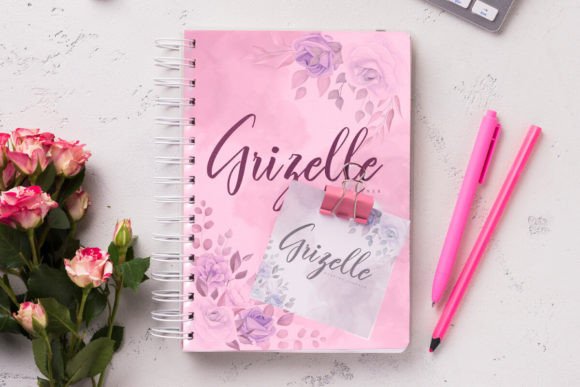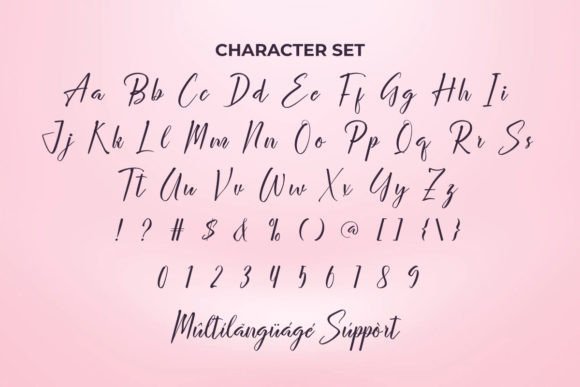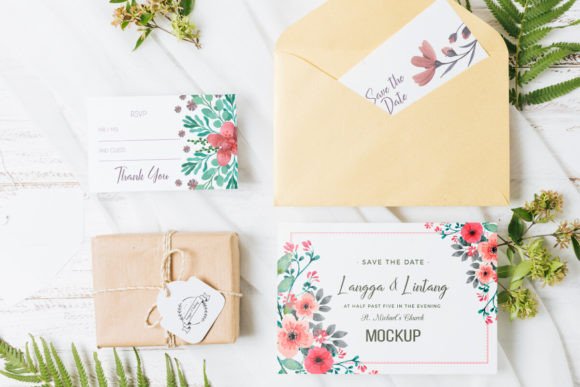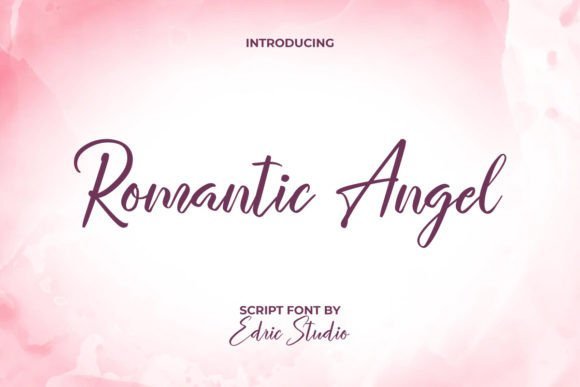
Introduction to Romantic Angel Font
Romantic Angel is a charming handwritten font that brings a sweet, personal touch to your designs.
With its smooth, flowing strokes and friendly character, it’s perfect for invitations, greeting cards, and cozy branding Add warmth and personality to your projects with the delightful charm of Romantic Angel.
Key Features of Romantic Angel Font